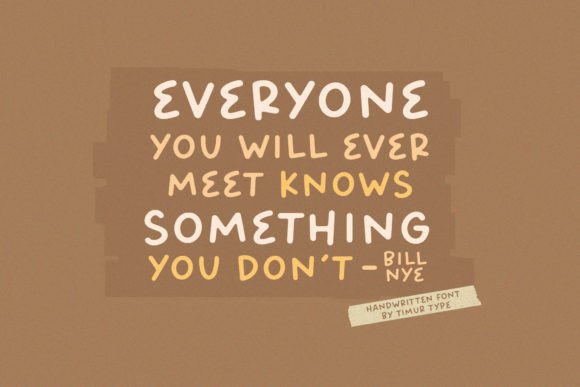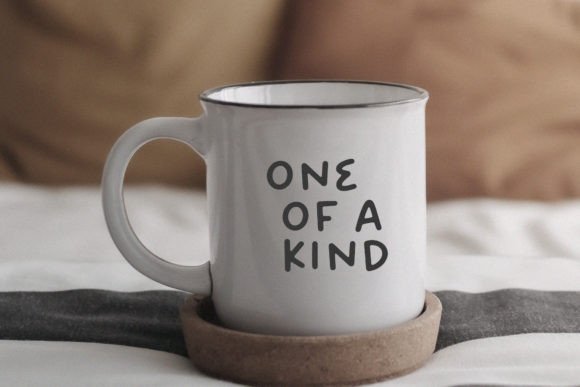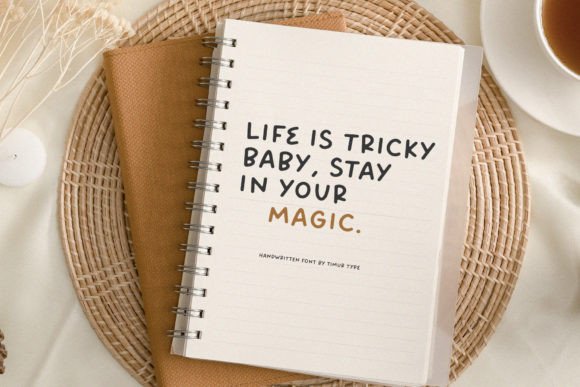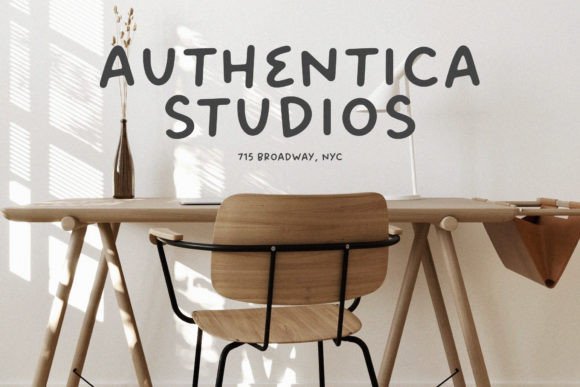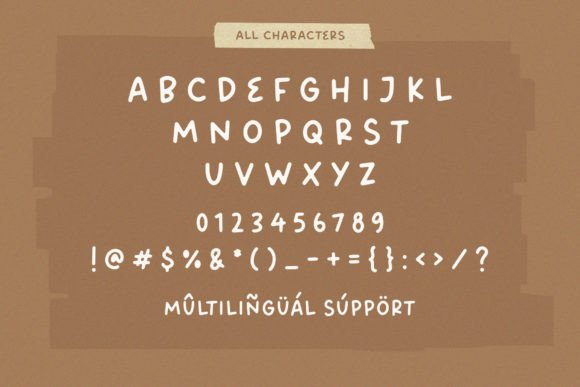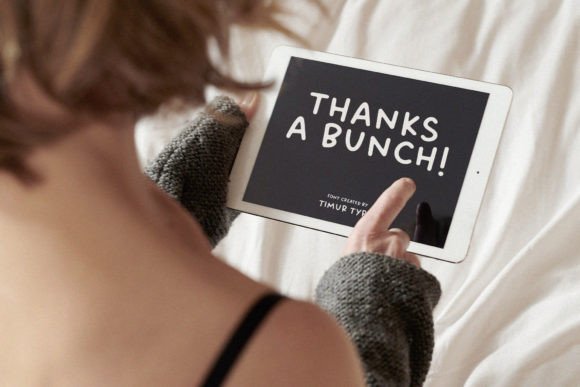
Discover the Perfect Blend of Creativity and Functionality
As a designer, have you ever found yourself staring at a blank canvas, desperately seeking the perfect font to bring your project to life? The frustration is real, but what if I told you there’s a solution that’s as easy as, well, baking a loaf of bread? Enter the Bread Forest Font, a charming and whimsical handwritten typeface designed to elevate your craft with minimal effort.
This delightful font is more than just a pretty face – it’s a game-changer for designers looking to stand out from the crowd. With the Bread Forest Font, you’ll be able to add a touch of personality to your products, making them instantly more appealing to your target audience. Whether you’re a seasoned pro or just starting out, this font is sure to become your new go-to for adding a dash of creativity to your designs.
Bread Forest Font Key Features
- Font Family: Bread Forest Font is a unique, hand-drawn font designed to evoke a natural, earthy feel.
- Character Set: Includes a comprehensive set of uppercase and lowercase letters, numerals, and punctuation marks.
- Unique Characteristics: Features a distinctive, organic design with subtle texture and imperfections, giving it a handmade feel.
Bread Forest Font Review
I recently had the chance to work with the Bread Forest Font, and I have to say it’s a mixed bag. On the one hand, there are some things that really work well. ✨ The font’s unique blend of natural and whimsical elements is immediately eye-catching, and it’s perfect for projects that need a bit of personality.
The Bread Forest Font is also highly customizable, with a wide range of OpenType features that allow you to fine-tune the look and feel of your text. This is a big plus for designers who like to have control over every detail.
- Unique and eye-catching design
- Highly customizable with OpenType features
- Perfect for projects that need a bit of personality
However, there are also some limitations to consider. ⚠️ The font can feel a bit over-the-top at times, and it may not be suitable for projects where you need a more straightforward or professional look.
Overall, I’d say the Bread Forest Font is a solid choice for designers who are looking for something a bit different. While it may not be perfect for every project, it’s definitely worth considering if you want to add a bit of whimsy to your design.
- Can feel over-the-top or too playful
- Not suitable for all project types (e.g. professional or straightforward designs)
Getting the Most Out of the Bread Forest Font
For the best results, use the Bread Forest Font in conjunction with earthy tones and natural textures. Experiment with different font sizes and styles to create a unique visual effect.
The Bread Forest Font is ideal for use in branding, packaging, and marketing materials related to food, nature, and sustainability. It can also be used in digital products, such as ebooks and websites, that focus on environmental or wellness topics.